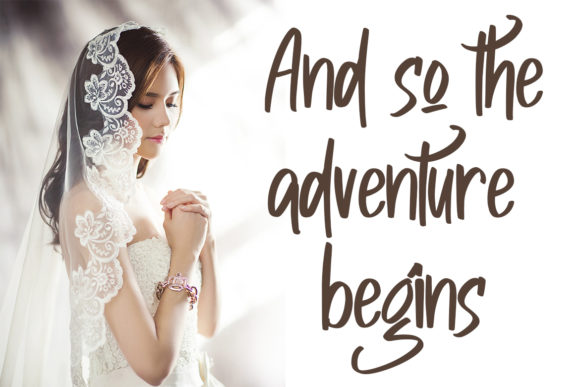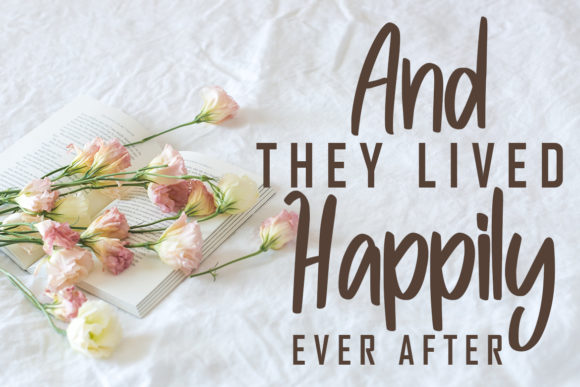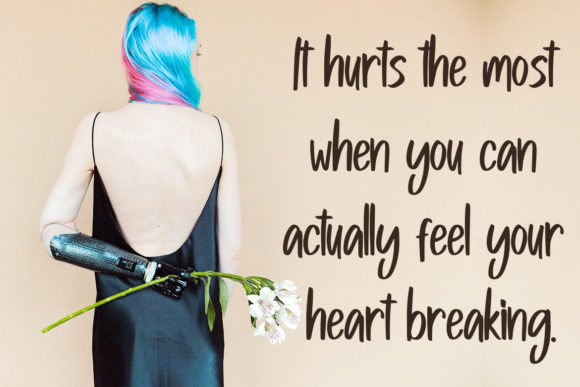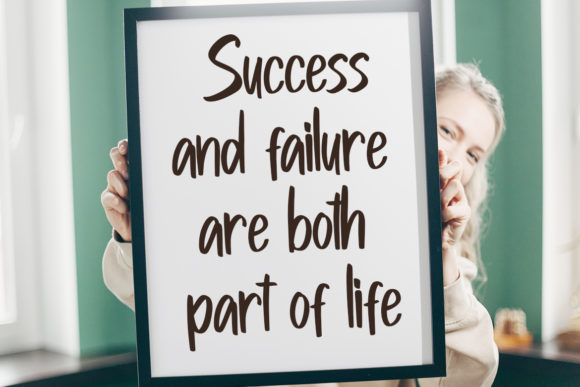
About Qalesya Font
Qalesya is an elegant handwritten font. Clean and a little bit quirky, this font is the perfect fit for all of your logos, branding, social media, and crafty DIY projects.